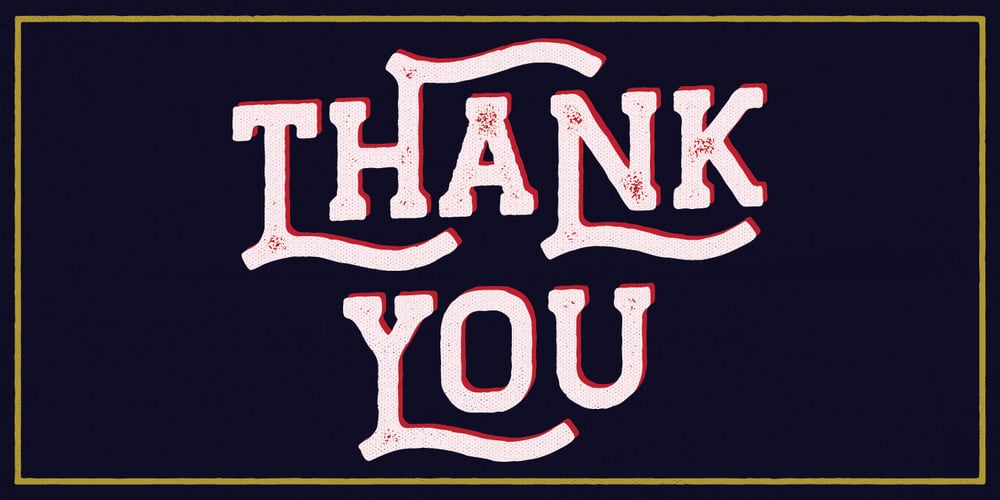
Hansel
Hansel Font Family was designed by Lukman Hidayat and published by Viaction Type.Co. Hansel contains 2 styles and family package options. Hansel is a slab serif with 2 styles rough & textured, which can be nicely applied in various products. Complete with multilingual characters and stylistic alternates. It is suitable for quotes, clothing design, vintage logos, labels, posters, packaging and other designs. Features (PUA Encoded) : – UPPERCASE. – LOWERCASE. – MULTILINGUAL. – PUNCTUATION & SYMBOL. – STYLISTIC SET. I hope you enjoy and thank you.